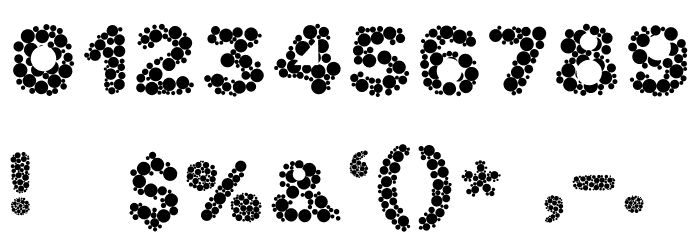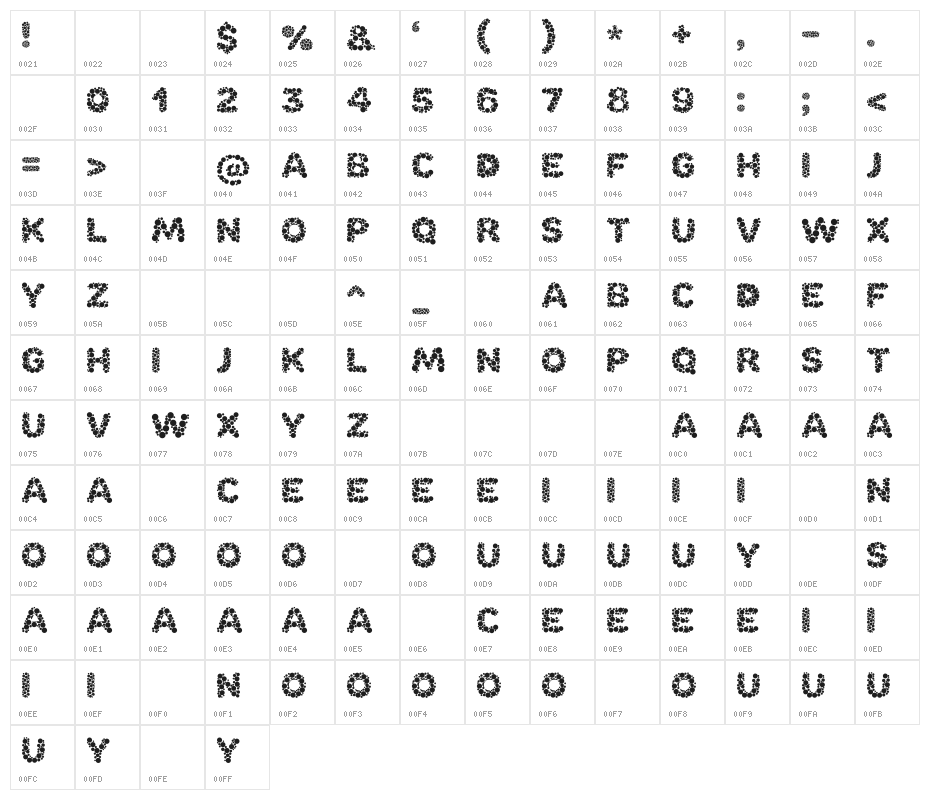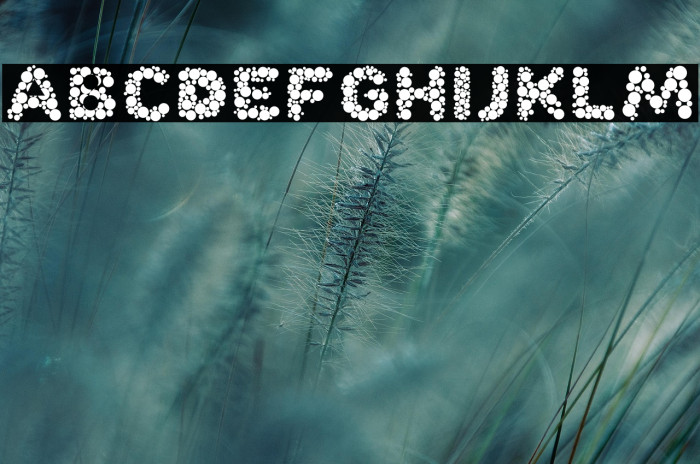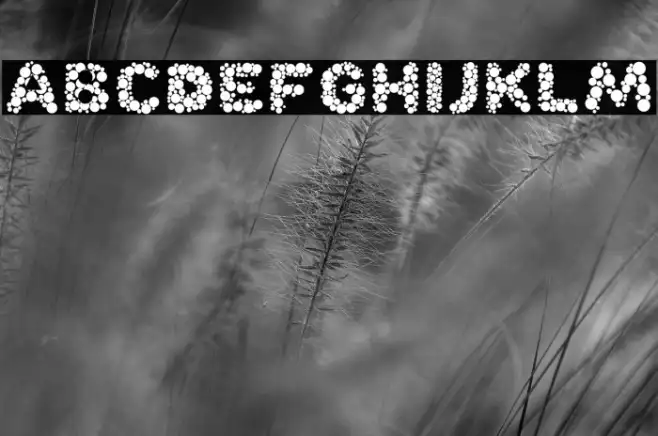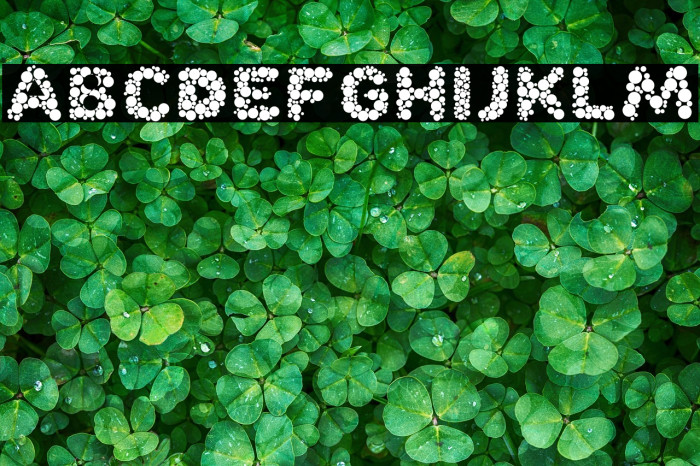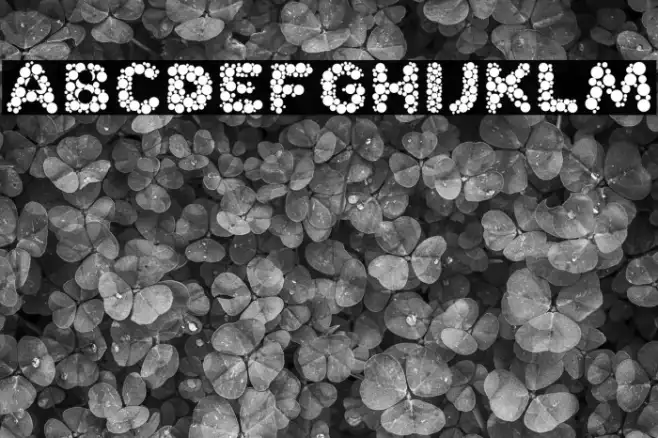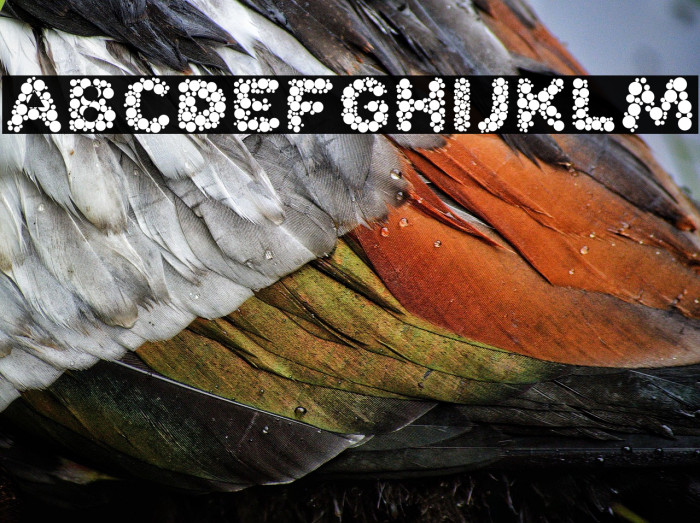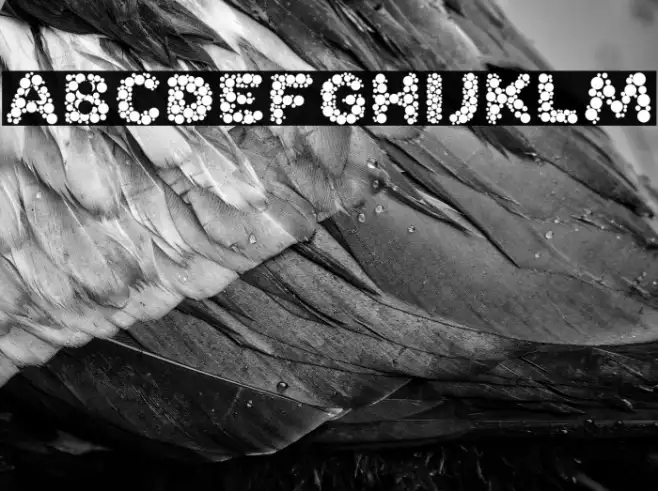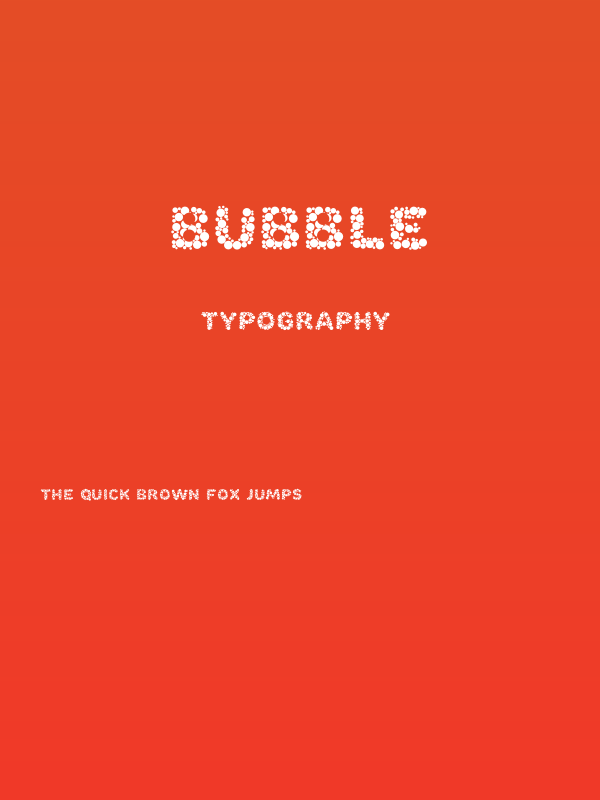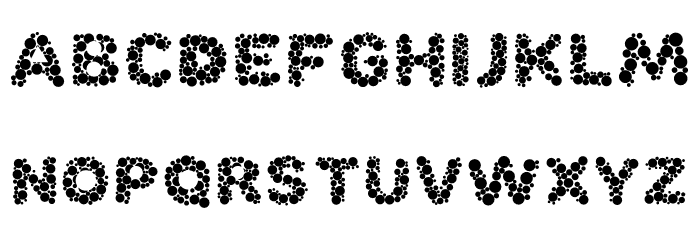
Bubble Font
Bubble Description
This playful and eye-catching font is composed entirely of small, circular bubble-like shapes that form each character. The design is bold and whimsical, making it ideal for projects that require a fun and engaging aesthetic. The characters are evenly spaced, with a consistent pattern of bubbles that vary slightly in size, adding a dynamic texture to the text. The font maintains a uniform weight throughout, with medium contrast in stroke thickness due to the bubble composition. Its unique style is both decorative and modern, perfect for capturing attention in creative projects.
| Proposed Projects | Ideal for children's book covers, party invitations, playful branding, and creative posters. |